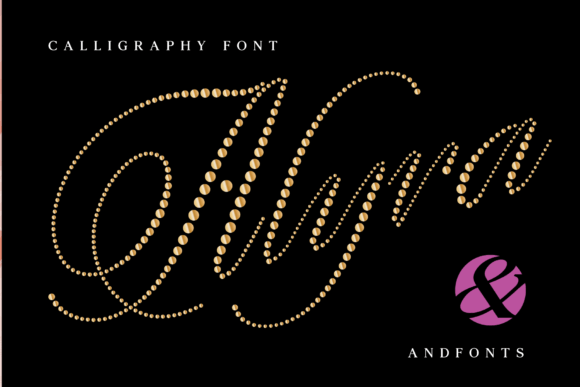
Step into the world of Alyra, a calligraphy font that is anything but ordinary. Alyra is a handwritten font that has a beautiful, eye-catching dotted design that is perfect for any project looking to stand out from the crowd.
Make a statement with Alyra's graceful curves and elegant lines. Perfect for wedding invitations, stationery, logos, branding, and packaging, Alyra adds a touch of sophistication and refinement to any design. Its rich, luxurious feel makes it the perfect choice for high-end products and services, while its uniqueness is sure to captivate your audience.
With its flowing script that is both easy to read and visually appealing, Alyra is a versatile font suitable for a wide range of projects. Whether you're creating marketing materials, social media posts, or website content, Alyra is sure to leave a lasting impression.
Unleash your creativity with Alyra. Its unique dotted design is sure to turn heads and make your projects pop. Alyra is the perfect font for anyone looking to add a touch of elegance and sophistication to their work.
Experience the magic of Alyra today and see how it can transform your designs into masterpieces. With its captivating design and versatility, Alyra is the perfect font for those looking to make a statement.